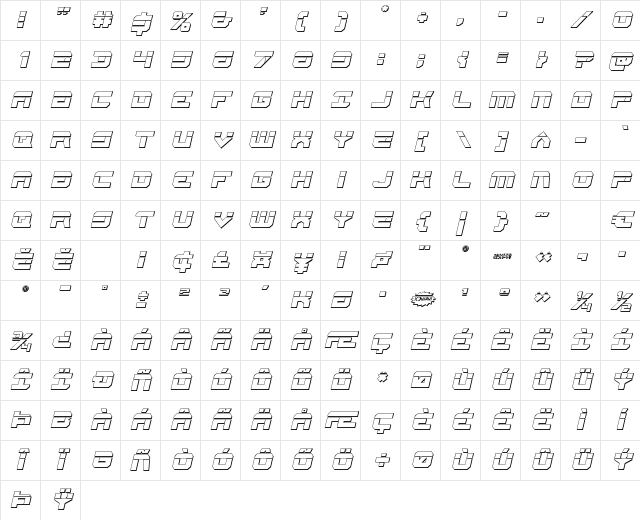
Gearhead Bullet Italic Italic
Design Context for Gearhead Bullet Italic
Gearhead Bullet Italic is a composed and adaptable typeface that performs quietly and consistently across a wide range of design contexts. The slanted form adds forward momentum and visual energy.
Pro Tip: Use Gearhead Bullet Italic for emphasis, pull quotes, and subheadings where its slanted energy can add rhythm to the layout.